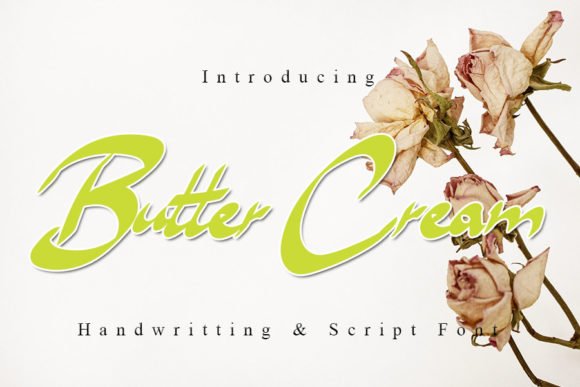
Discover the Sweet Charm of Butter Cream Font
Remember that moment when you finally found the perfect font to match your creative vision? The one that brings your design to life and leaves a lasting impression on your audience? For many designers, this moment is a rare and precious find. But what if I told you that you can add this magic to your toolkit with the enchanting Butter Cream Font?
This whimsical script font is more than just a pretty face; it’s a versatile and elegant tool that can elevate any project, from invitations and greeting cards to branding and packaging. With its relaxed theme and lovely style, Butter Cream Font is the perfect addition to any designer’s library. Whether you’re a seasoned pro or just starting out, this font is sure to become your new go-to companion for creating stunning designs.
Butter Cream Font Key Features
- Font Family: A warm, elegant script font designed for various applications.
- Unique Characteristics: Features a unique blend of classic and modern elements, making it perfect for invitations, wedding stationery, and other special occasions.
Designer Review: Butter Cream Font
Overall, I’m impressed with the Butter Cream Font. It’s a unique and eye-catching choice for any design project that needs a touch of whimsy and playfulness. ✨ The font’s rounded edges and soft curves evoke a sense of warmth and approachability, making it perfect for branding and packaging design.
Here are some of the things that I love about the Butter Cream Font:
- ✨ Unique and recognizable: The font’s distinctive style makes it instantly recognizable and memorable.
- ✨ Versatile: It can be used for a wide range of design projects, from children’s books to food labels.
- ✨ High-quality: The font is well-designed and technically sound, making it easy to use and manipulate.
- ⚠️ Limited legibility: At smaller font sizes, the Butter Cream Font can be difficult to read due to its rounded edges and soft curves.
- ⚠️ Not suitable for formal or professional designs: The font’s playful and whimsical style may not be suitable for more formal or professional design projects.
Overall, I think the Butter Cream Font is a great choice for designers who want to add a touch of personality and whimsy to their projects. With its unique style and versatility, it’s a great addition to any design toolkit.
Practical Application Guide: Butter Cream Font
Getting the Most Out of Butter Cream Font
To get the most out of Butter Cream Font, use it for:
- Creative projects, such as invitations, cards, and posters.
- Food-related designs, such as menus, labels, and packaging.
- Emphasizing titles and headings in your designs.
Butter Cream Font is commonly used for:
- Wedding invitations and decorations.
- Food bloggers and influencers.
- Event planners and coordinators